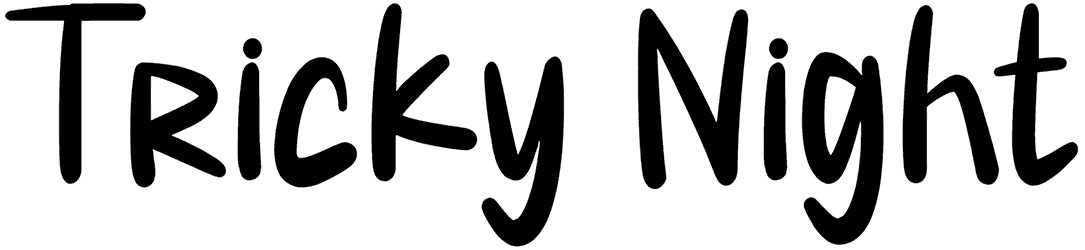
Tricky Night Font
Trying to use sharp angles instead of curved lines on the edges of Tricky Night has made it look scary. This Halloween font can be a starting point for designers who are looking for a different appearance and want to take a new direction in designing posters, invitations, and logos related to this important day.